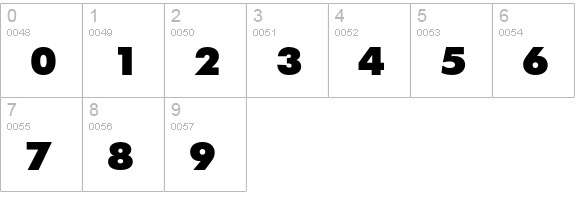
PT FuturaFuturis Black Cyrillic is a maximum-weight, dramatic variant in the PT typeface family \xE2\x80\x94 well suited to maximum-impact headlines, posters, and packaging.
PT FuturaFuturis Black Cyrillic font is a sleek and modern typeface that exudes sophistication and elegance. With its bold and striking appearance, this font is perfect for making a statement in your designs. The Cyrillic characters add a touch of uniqueness and versatility, making it suitable for a wide range of projects. What sets PT FuturaFuturis Black Cyrillic font apart is that it is available for free download at FontsMarket.com. This means you can easily access this high-quality font without any cost, making it a valuable addition to your design toolkit. Whether you're working on branding, editorial design, or any other creative project, PT FuturaFuturis Black Cyrillic font is sure to elevate your work with its modern and eye-catching aesthetic. Download it today and unleash your creativity with this stunning typeface.